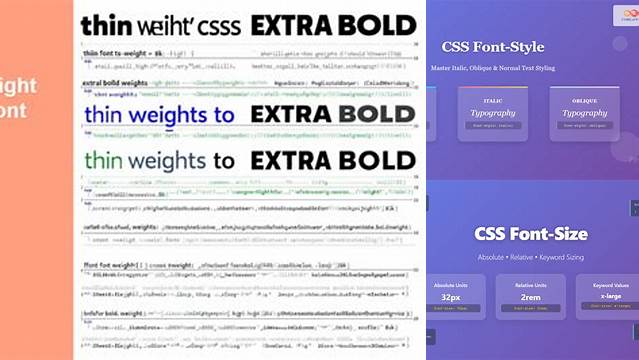
Mastering SVG Font Weight With CSS: A Comprehensive Guide
Hey guys! Ever wondered how to control the boldness of text within your Scalable Vector Graphics (SVGs) using CSS? It's a bit of a journey, but trust me, once you get the hang of it, you'll be styling your SVG text like a pro. We're diving deep into the world of svg font weight css, breaking down the concepts, and providing you with actionable steps. Let's get started!
H2: Understanding SVG and CSS Integration
Alright, first things first. Let's talk about the dynamic duo: SVG and CSS. svg font weight css relies on the seamless integration between these two. SVG, as you likely know, is an XML-based vector image format. This means that instead of relying on pixels, SVGs use mathematical formulas to define shapes, paths, and text. This makes them infinitely scalable without losing quality—perfect for responsive design. CSS, on the other hand, is the style sheet language that controls the presentation of your HTML elements, including SVGs. The beauty lies in how CSS can be applied to SVG elements, allowing you to manipulate their appearance. This includes the crucial font-weight property, which determines how bold your text will be. The key takeaway here is that while SVG defines what is displayed, CSS dictates how it’s displayed. This separation of concerns is fundamental to modern web development, making your code cleaner, more maintainable, and easier to update. Understanding this relationship sets the foundation for truly mastering svg font weight css. Remember that any styles you apply through CSS will override any default styles set within your SVG itself. This gives you ultimate control over your SVG's visual presentation. So, if your text appears thin or light, it’s highly likely that the CSS you've applied is overriding the default or pre-set styles of the SVG. Keep this in mind as we progress through the rest of this article. Also, bear in mind the different methods of incorporating CSS into your SVG. You can use inline styles directly within the SVG elements (though this is generally discouraged for maintainability), embed CSS within a <style> tag inside your SVG, or link an external CSS file to your SVG. The best method for you will often depend on the complexity of your SVG and how you intend to reuse it.
H2: The font-weight Property Explained
Let's get down to the nitty-gritty of the font-weight property. This CSS property defines the weight or boldness of a font. It's a simple yet powerful tool for adding emphasis, readability, and visual hierarchy to your text. When you're working with svg font weight css, understanding how the font-weight property works is absolutely essential. The font-weight property accepts several values, each representing a different level of boldness. The most commonly used values are: normal, bold, lighter, bolder, and numerical values ranging from 100 to 900. Normal is generally equivalent to a font weight of 400 and represents the regular weight of the font. Bold is typically equivalent to 700 and represents a significantly bolder weight. Lighter and bolder will make the font thinner or thicker relative to the font's inherited weight. And the numerical values provide more granular control; 100 is the thinnest weight, and 900 is the thickest. However, not all fonts support all these weights, and the actual appearance can vary depending on the font used. When specifying a font weight in CSS, it's crucial to ensure that the font you're using actually has that weight available. If a specified weight isn't available, the browser will typically fall back to a similar weight, often the nearest available one. For example, if you specify font-weight: 500 but the font only has 400 and 700 weights, it might render as 400 or 700, depending on the browser's behavior. This is one of the major considerations when working with svg font weight css. You must always verify that the font you have chosen supports the specific font-weight you desire. Also, remember that inheritance plays a significant role. If a parent element has a font-weight set, its child elements will inherit that weight unless overridden by their own specific styles. This can be handy for applying a consistent style throughout your SVG but can also cause confusion if you're not aware of it. The use of !important is generally not recommended, but in specific cases, when you are struggling with styles overriding your intended behavior, !important can be useful for ensuring the specified font weight is applied. However, overuse can make your CSS difficult to maintain. So, use it with caution.
H3: Applying Font Weight to SVG Text Elements
Okay, let’s put theory into practice! Applying font weight to SVG text elements is where the magic happens. With svg font weight css, the process involves targeting your <text> elements within your SVG and using the font-weight property in your CSS. Here's how it works. First, you need to make sure you have your SVG embedded in your HTML or loaded as an image. Next, you need to link your CSS to either an external stylesheet, an embedded <style> tag within your HTML, or even inline styles (though, again, inline styles are generally best avoided for longer projects). Now, within your CSS, select the <text> elements you want to style. You can do this by using the element selector (text), a class selector (.my-text), or an ID selector (#myText). The element selector targets all text elements, the class selector targets elements with a specific class, and the ID selector targets a single element with a specific ID. Choose the selector that best suits your needs. Once you've selected your text elements, apply the font-weight property. For example, to make all text bold, you would use: text { font-weight: bold; }. To make text with the class 'my-text' bold, you'd use .my-text { font-weight: bold; }. If you are using inline styles, it would look like this: `<text style=